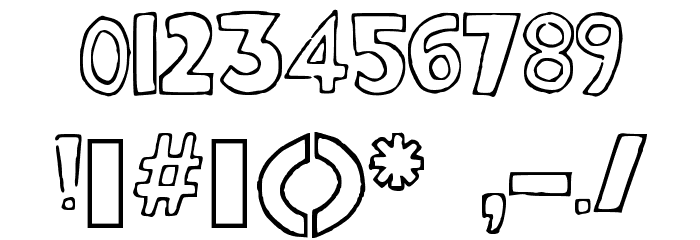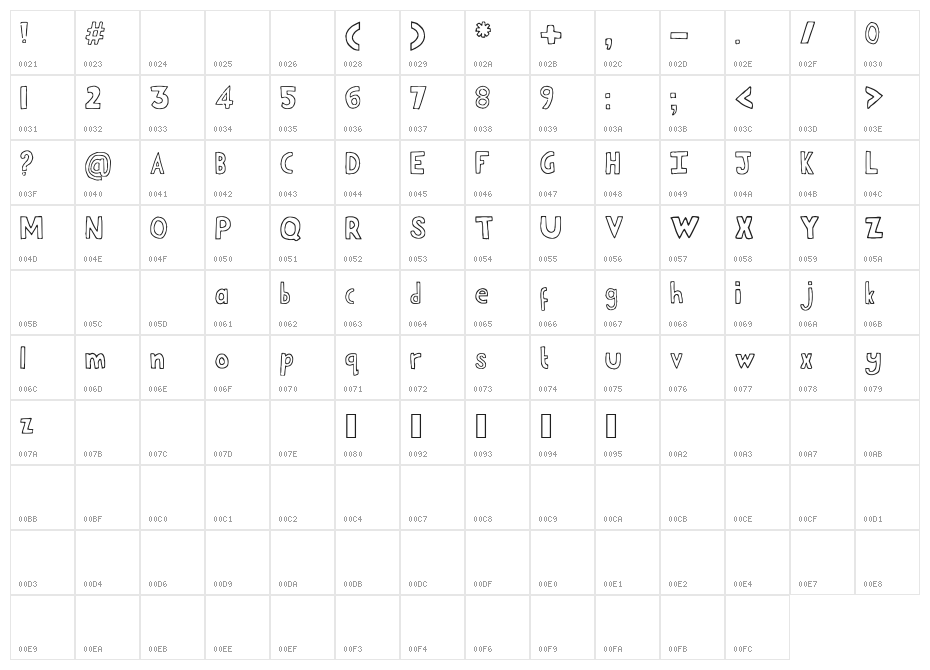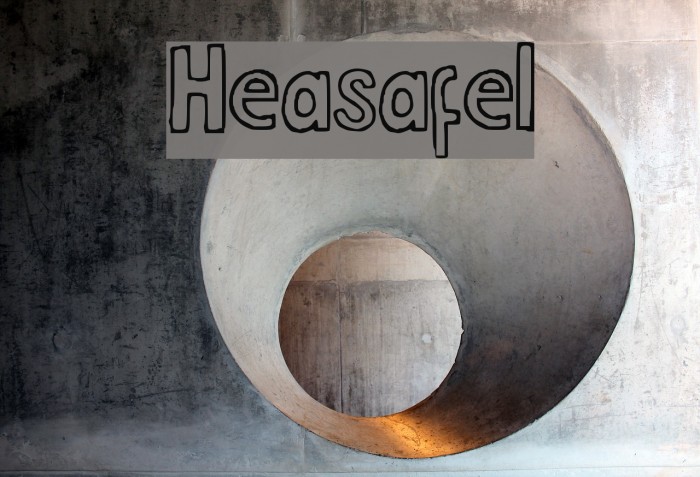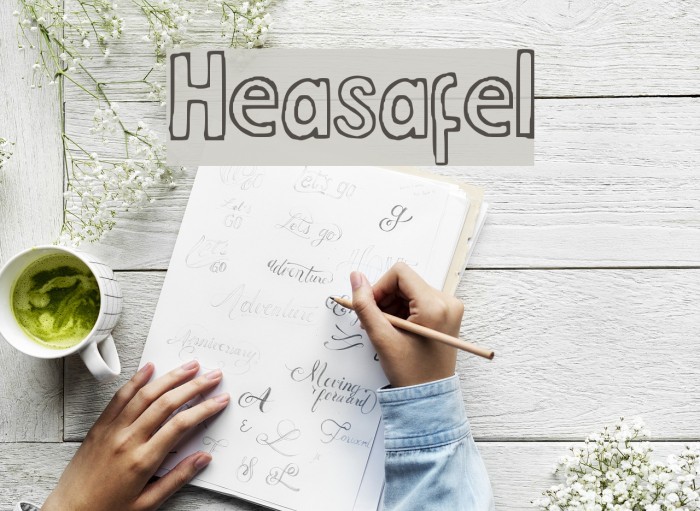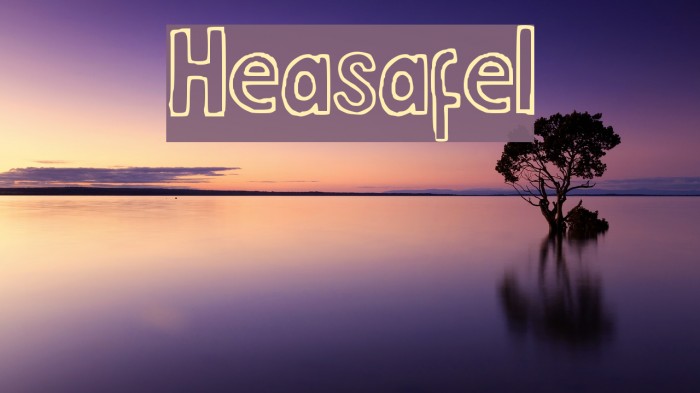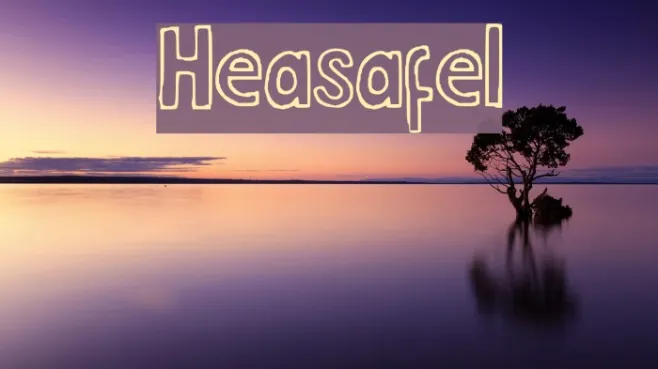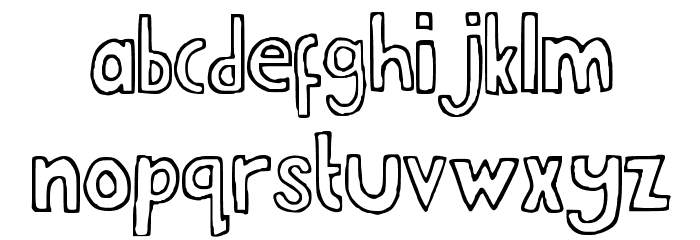
Heasafel Font
Heasafel Description
This playful and bold font features a hand-drawn, outlined style that gives it a whimsical and informal appearance. The characters are slightly irregular, adding to the charm and uniqueness of the design. The uppercase and lowercase letters maintain a consistent style, with rounded edges and a casual feel. The numbers and special characters follow the same playful aesthetic, making this font ideal for creative projects. Its outlined nature makes it stand out, perfect for eye-catching designs.
Overall StylePlayful, Whimsical
Proposed ProjectsIdeal for children's books, comic strips, playful branding, posters, and greeting cards.